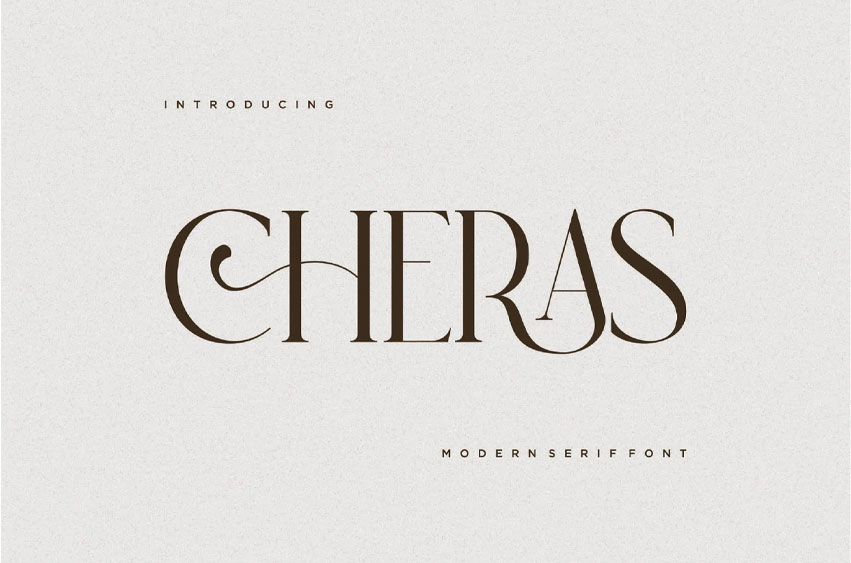
Cheras Font: Elevate your designs with Cheras, a modern serif font that blends timeless elegance with a contemporary edge. With its refined serifs, balanced curves, and clean lines, Cheras offers a perfect harmony between classic sophistication and modern minimalism. Ideal for branding, editorial layouts, logo designs, and high-end fashion projects, this typeface commands attention without being overbearing.
Whether you’re creating striking headlines or elegant body text, Cheras brings a touch of class and professionalism to every composition. Its versatility and strong character make it a must-have for designers seeking both beauty and functionality in their typography.
Make a bold yet graceful statement—Cheras is where tradition meets modernity.